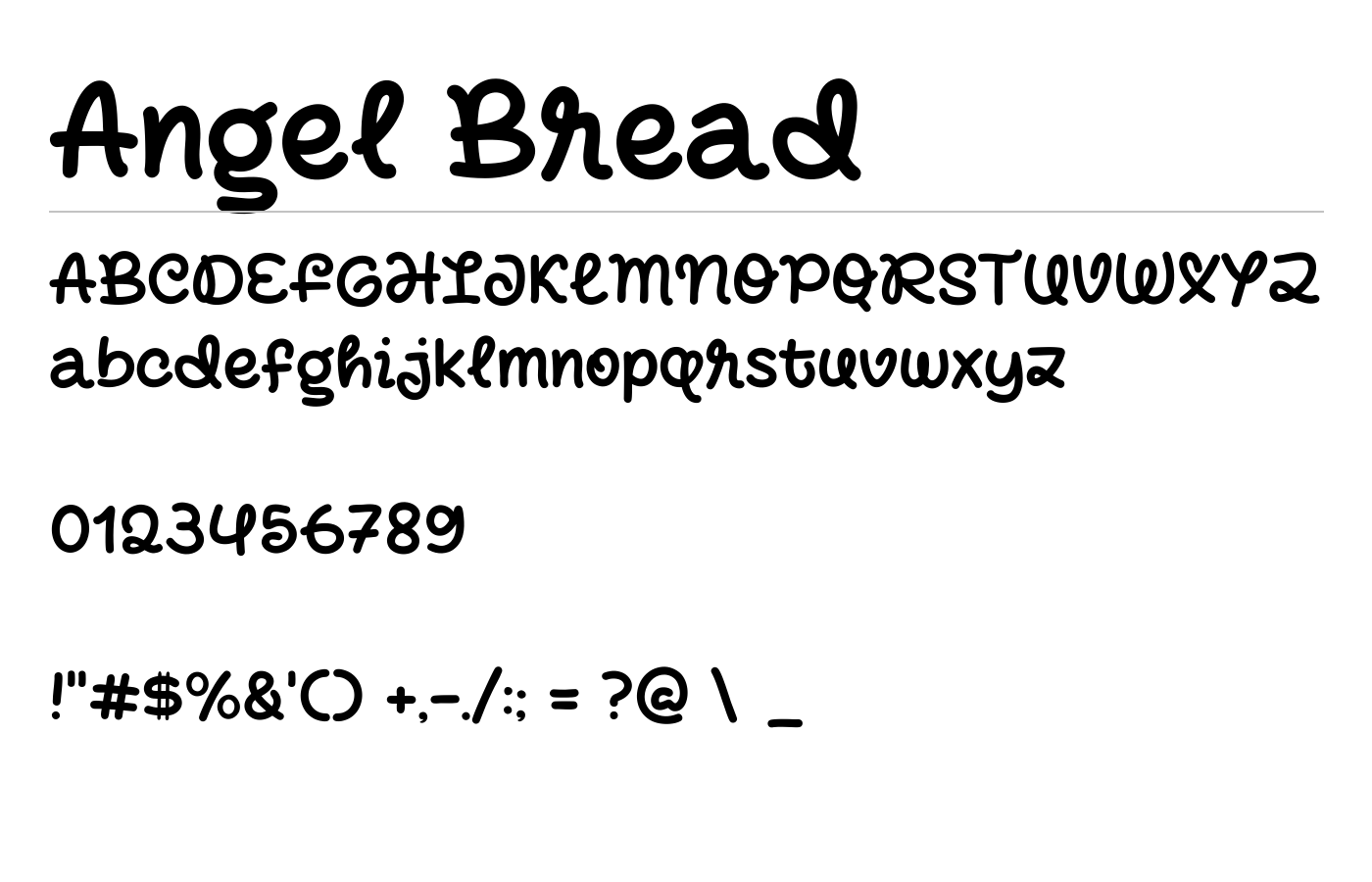
Angel Bread is a playful and casual sans serif font with a handwritten, rounded style that feels friendly and approachable. Its consistent weight and slightly quirky letterforms make it ideal for informal designs, children's projects, and creative branding that seeks a warm, personal touch. This font works well for logos, packaging, and titles where a fun and relaxed vibe is desired.
Angel Bread Font
About Angel Bread Font